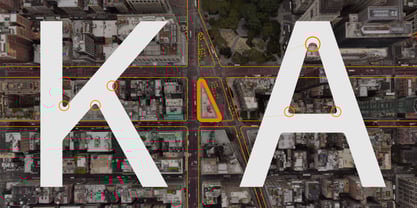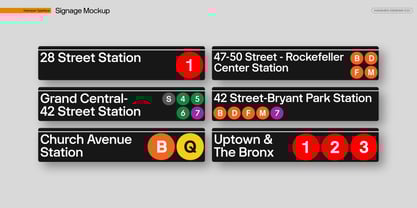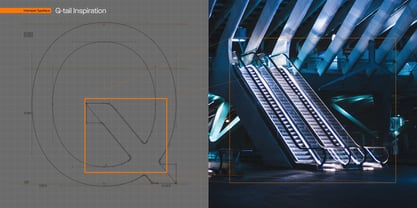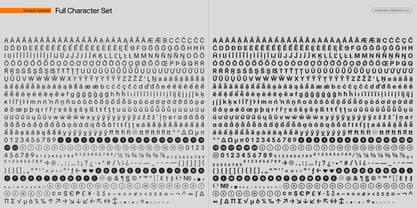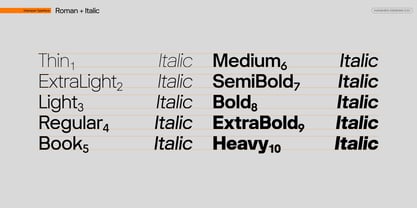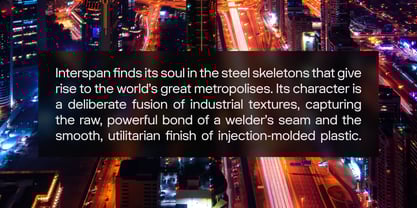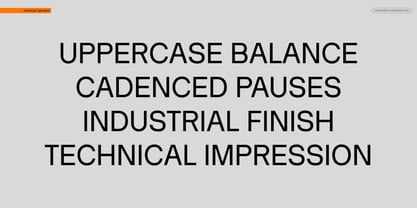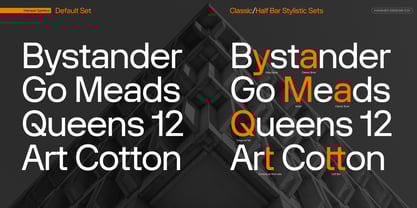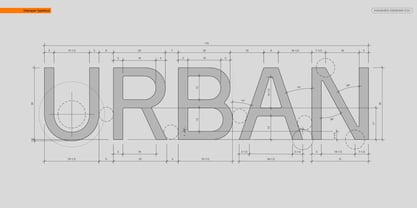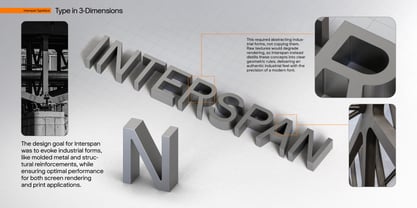
Interspan
by Hanken Design Co.
The Interspan Font Family was designed by Alfredo Marco Pradil and published by Hanken Design Co.. Interspan contains 20 styles and family package options. More about this family
Interspan is a low-contrast, compact grotesk sans serif typeface defined by clean lines, modern aesthetics, and versatile functionality. Its condensed letterforms enhance readability in tight spaces while retaining clarity. Distinctive details include an uppercase W that mirrors the shape of the uppercase V, creating visual harmony, and a lowercase r with a curved stem that adds subtle dynamism without disrupting consistency.
The typeface spans a “broad range” of weights, from Thin to Heavy, ensuring flexibility across design applications—headings, subheadings, and body text. Despite its unique quirks, Interspan maintains a balanced rhythm, excelling in both display and long-form contexts. Clean yet characterful, it blends modernity with subtle personality, making it ideal for contemporary branding, editorial layouts, and user interface typography.
Designers: Alfredo Marco Pradil
Foundry: Hanken Design Co.